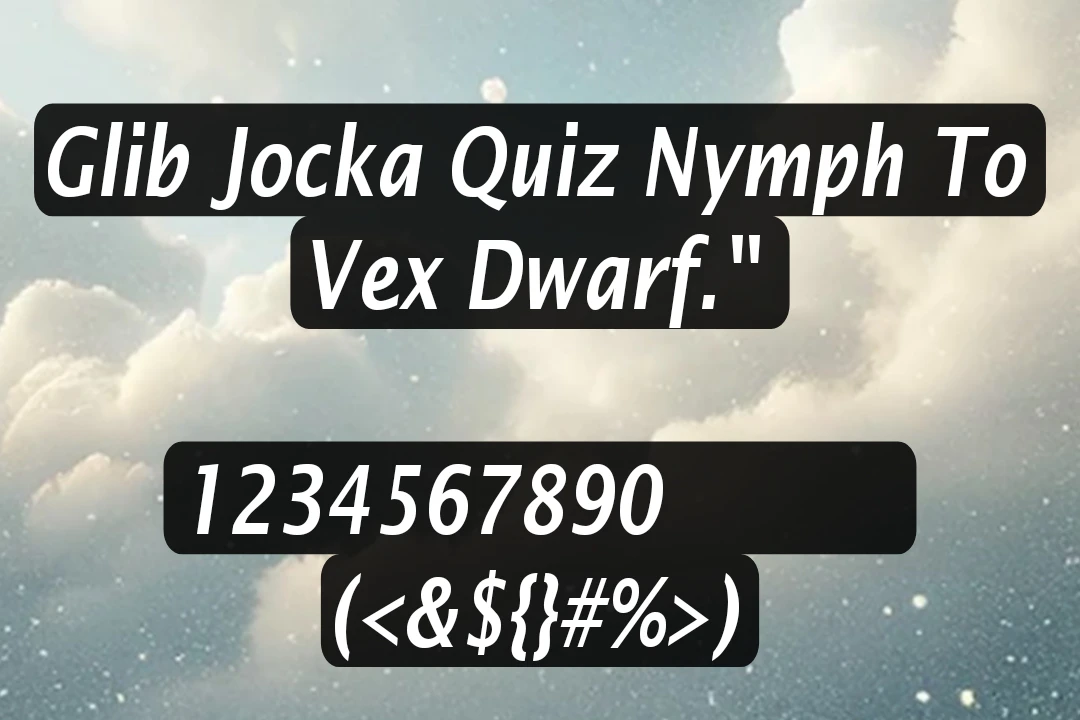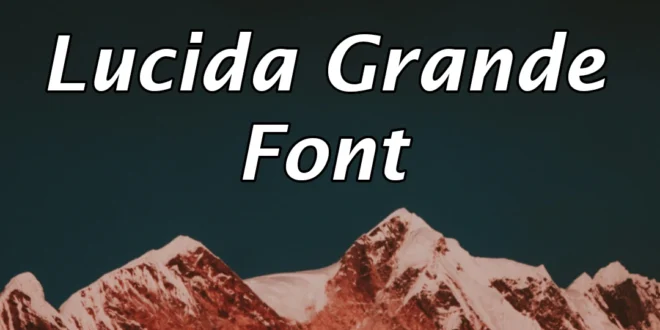
Lucida Grande is a humanist sans-serif typeface. It was created by type designers Charles Bigelow and Kris Holmes of the foundry Bigelow & Holmes and published by Monotype Imaging.
It gained wide visibility because it was used as the system font in Mac OS X (now called macOS) from around 1999 until about 2014.
Its clean and legible appearance makes it a favorite for both digital and print projects. This unique texture family includes regular, bold, italic, and bold-italic weights, offering versatility for various design needs.
Usage of Lucida Grande Regular Font
Enhance your website with the clean and professional look of Lucida Grande Regular. It’s perfect for body text, headers, and navigation menus, ensuring your content is easy to read and visually appealing. You can easily pair it with Museo Sans Font and create fantastic projects.